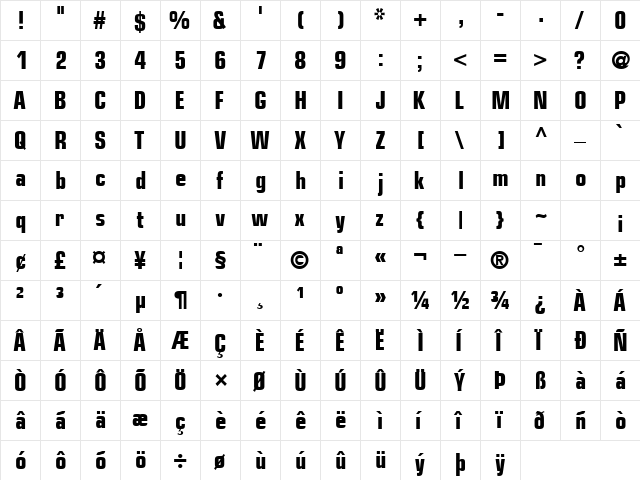
PalindromeCondSSK Bold
Design Context for PalindromeCondSSK Typeface
PalindromeCondSSK is a composed and adaptable typeface that performs quietly and consistently across a wide range of design contexts. Its bold stroke weight gives it real presence on the page. The condensed width makes it efficient for tight spaces without sacrificing legibility.